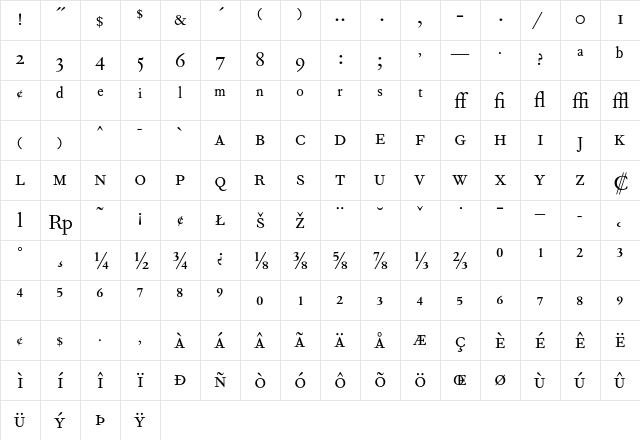
Fournier MT Regular Expert
Style: Regular Expert
Design Context for Fournier MT
Fournier MT is a composed and adaptable typeface that performs quietly and consistently across a wide range of design contexts.